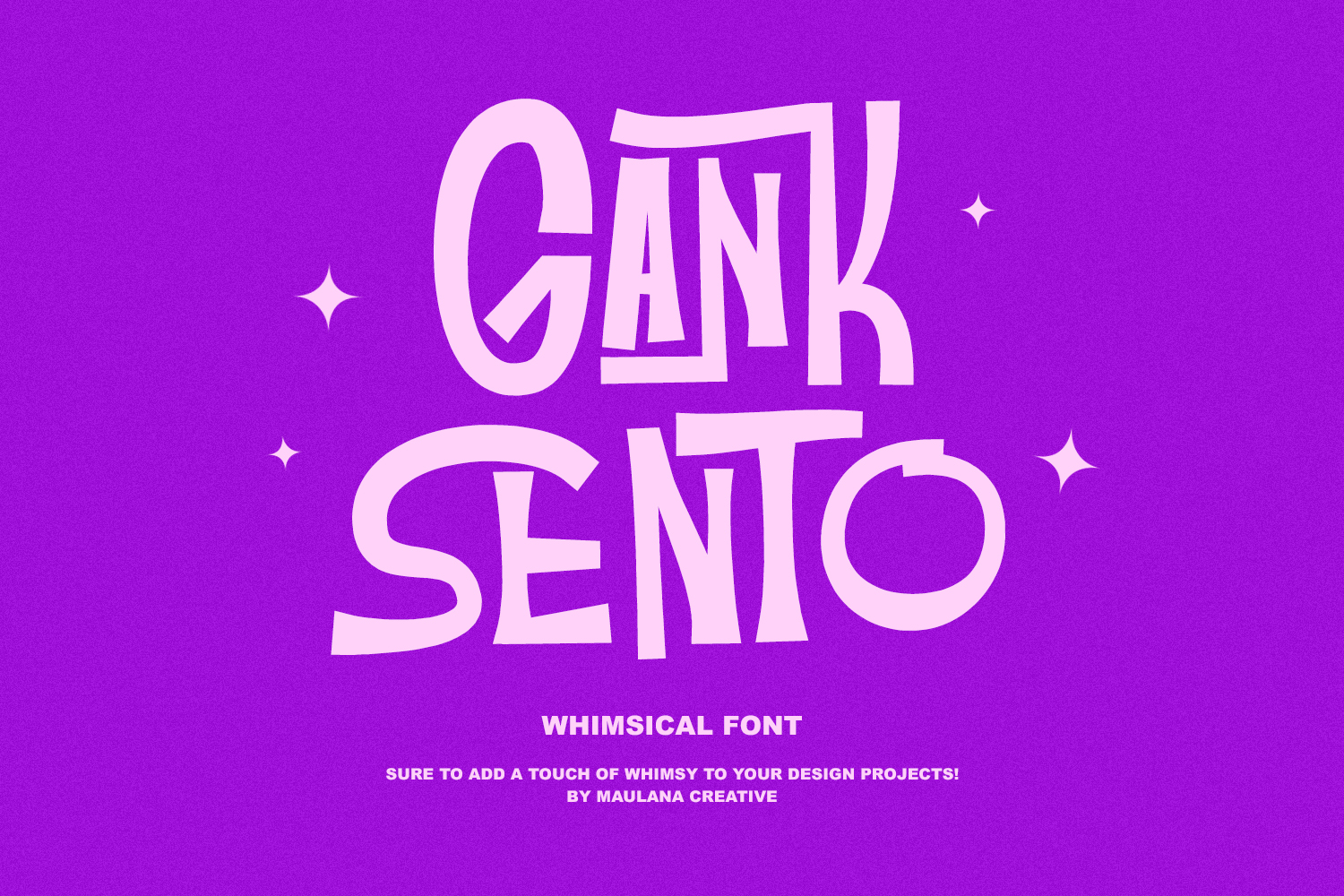
Gank Sento is a whimsical style display font. Fun character with a bit of ligatures and alternate. To give you an extra creative work. Gank Sento whimsical font support multilingual more than 100+ language. This font is good for logo design, Social media, Movie Titles, Books Titles, a short text even a long text letter and good for your secondary text font with sans or serif. Make a stunning work with Gank Sento font.